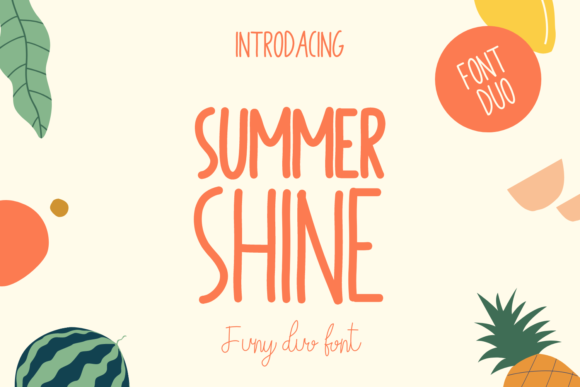
Summer Shine Font
Summer Shine is a cute handwritten font that can be used for all chalkboard quotes or teaching material! Its authentic look and feel will add a personal and realistic feel to your designs.